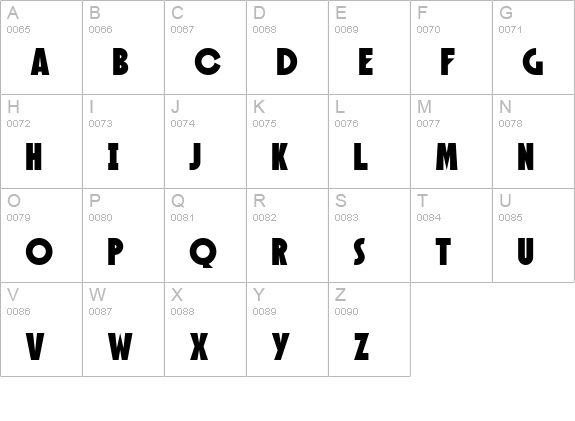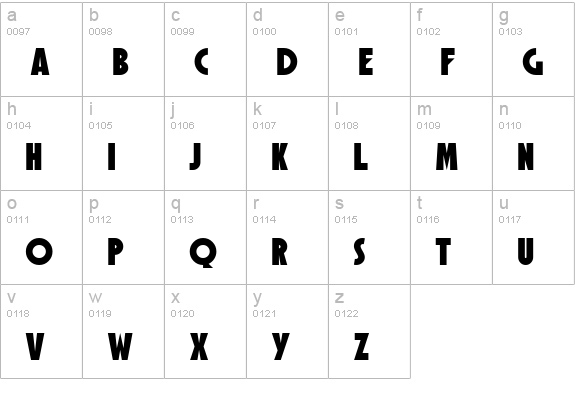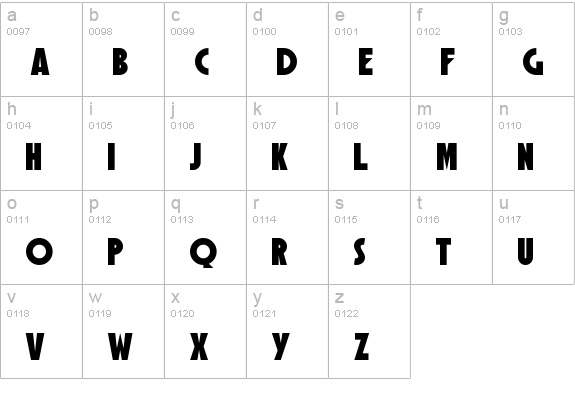
SF Speakeasy Font Details
SF Speakeasy is a stunning and elegant font that effortlessly captures the essence of the Roaring Twenties. With its sleek and sophisticated design, this font is perfect for adding a touch of vintage charm to any project. Inspired by the typography used in the speakeasies of the 1920s, SF Speakeasy exudes a sense of mystery and intrigue. Each letter in SF Speakeasy is meticulously crafted, with sharp edges and clean lines that create a sense of timeless beauty. The font's bold and distinct characters make it ideal for headlines, logos, and other attention-grabbing elements. One of the best things about SF Speakeasy is that it is available for free. Yes, you read that right - this incredible font can be downloaded freely at FontsMarket.com. This means that anyone, regardless of their budget, can enjoy the beauty and elegance of SF Speakeasy in their designs. Whether you're working on a vintage-inspired wedding invitation, a retro-themed poster, or a classic branding project, SF Speakeasy is the perfect choice. Its versatility and timeless appeal make it suitable for a wide range of applications. So why wait? Head over to FontsMarket.com and download SF Speakeasy today. Unleash your creativity and add a touch of 1920s glamour to your designs with this remarkable font. With SF Speakeasy, you can effortlessly transport your audience back in time and create a truly unforgettable visual experience.